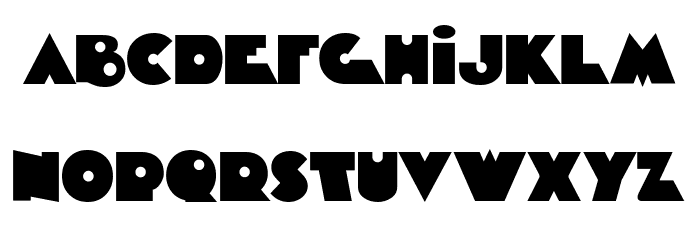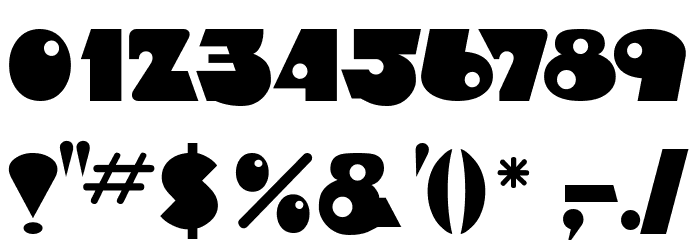
Timepiece Font
This font features a bold, geometric design with strong, angular shapes and a distinct Art Deco influence. The characters are crafted with sharp edges and a high level of contrast, creating a striking visual impact. The uppercase letters are particularly prominent, with a unique style that combines both circular and triangular elements. The numbers and special characters maintain the same bold and geometric aesthetic, ensuring consistency across the entire character set. This font is ideal for projects that require a strong, attention-grabbing typeface.
A bold, geometric font with Art Deco influences and high contrast.
- Font: Timepiece
- Proposed Projects: Ideal for posters, logos, branding, and any design requiring a bold statement.
- Category: Decorative/Display
- Contrast: High
- Overall Style: Art Deco, Modern